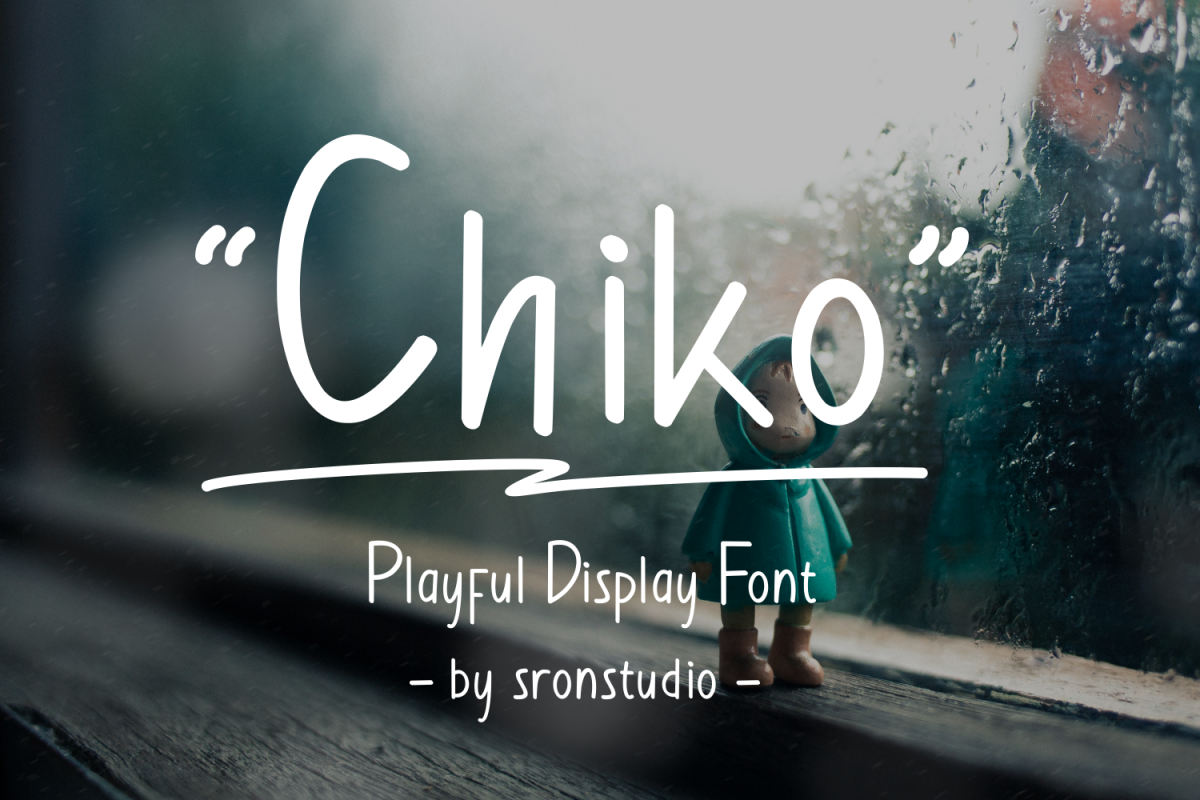
Chiko - A playful display font
Chiko
Meet Chiko, This is hand-drawn fonts truly give off a real personal touch to your projectsIt is perfect used for various purposes such as editorial design, branding, art quote, book / cover title, poster, apparel design, product packaging, label, special events or anything that need hand-drawn taste.